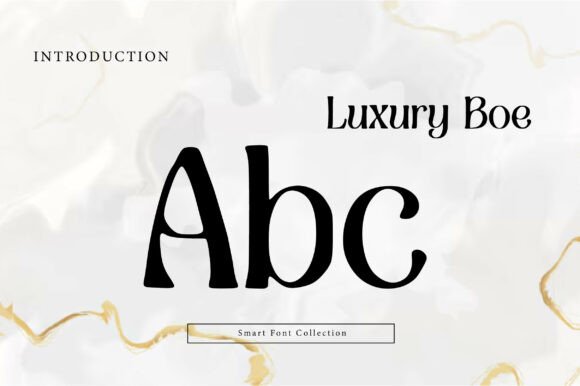
Introduction to Luxury Boe Font
Luxury Boe Font is a sophisticated and modern serif typeface designed for the world of high-end fashion and upscale branding.
This Luxury Boe typeface features clean, tall proportions and subtle, elegant terminals that exude a sense of timeless refinement It strikes a balance between classical serif structures and contemporary minimalist aesthetics, ensuring the Luxury Boe font remains a versatile asset for any designer aiming to communicate premium quality and professional prestige.
Key Features of Luxury Boe Font